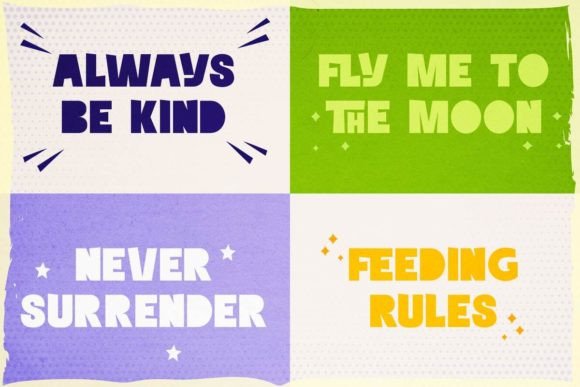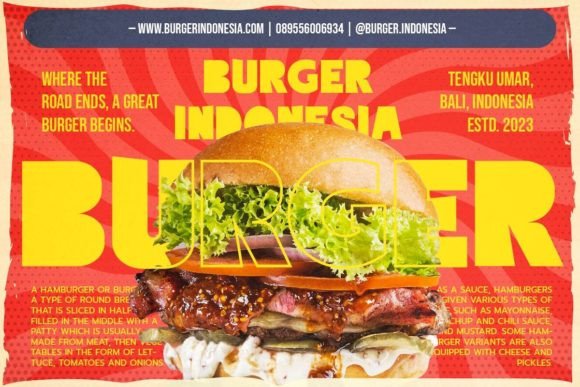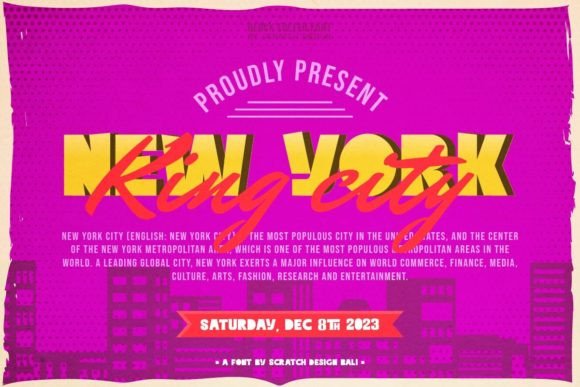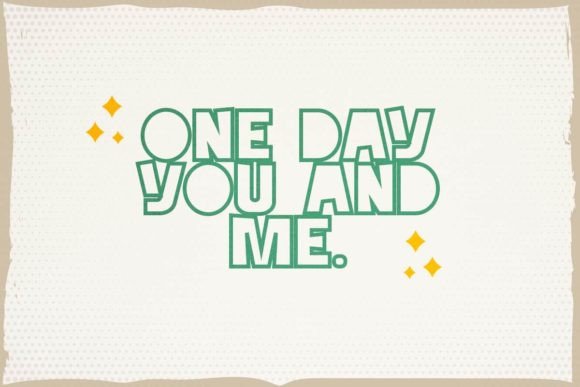
Introducing Block Atella Font: The Ultimate Retro Typeface for Creative Designs
Are you tired of using the same old fonts in your designs? Do you want to add a touch of quirkiness and playfulness to your projects? Look no further than Block Atella Font, a retro, vintage, and playful typeface that’s perfect for designers and crafters who want to create standout designs.
What is Block Atella Font?
Block Atella Font is a unique and eye-catching typeface that’s inspired by the nostalgia of retro designs. Its quirky and cute characteristics make it an ideal choice for designers who want to add a touch of personality to their projects. Whether you’re creating logos, labels, packaging, invitations, branding materials, or advertising designs, Block Atella Font is sure to make your designs pop.
Key Features of Block Atella Font
- Retro and Vintage Look: Block Atella Font has a distinct retro and vintage look that’s perfect for designers who want to create designs that evoke a sense of nostalgia.
- Playful and Quirky: The font’s playful and quirky characteristics make it an ideal choice for designers who want to add a touch of personality to their designs.
- Highly Versatile: Block Atella Font is highly versatile and can be used for a wide range of design projects, from logos and labels to packaging and advertising designs.
- Easy to Read: Despite its quirky and playful characteristics, Block Atella Font is easy to read, making it perfect for designs that require a clear and legible typeface.
Uses of Block Atella Font
Block Atella Font is a highly versatile typeface that can be used for a wide range of design projects, including:
- Logos: Create unique and eye-catching logos that stand out from the crowd with Block Atella Font.
- Labels: Use Block Atella Font to create labels that are both functional and visually appealing.
- Packaging: Add a touch of personality to your packaging designs with Block Atella Font.
- Invitations: Create invitations that are both playful and sophisticated with Block Atella Font.
- Branding: Use Block Atella Font to create branding materials that reflect your brand’s personality and style.
- Advertising: Create eye-catching advertising designs that grab attention with Block Atella Font.
Why Choose Block Atella Font?
There are many reasons why designers and crafters should choose Block Atella Font for their design projects. Here are just a few:
- Unique and Eye-Catching: Block Atella Font is a unique and eye-catching typeface that’s sure to make your designs stand out from the crowd.
- Highly Versatile: The font’s versatility makes it perfect for a wide range of design projects.
- Supports Multiple Languages: The font supports multiple languages, making it perfect for designers who work with international clients.
In conclusion, Block Atella Font is a retro, vintage, and playful typeface that’s perfect for designers and crafters who want to create standout designs. Its quirky and cute characteristics make it an ideal choice for designers who want to add a touch of personality to their projects. With its highly versatile and easy-to-use design, Block Atella Font is sure to become a go-to typeface for designers and crafters around the world.